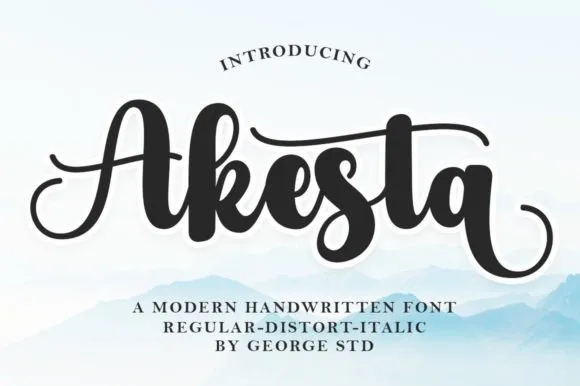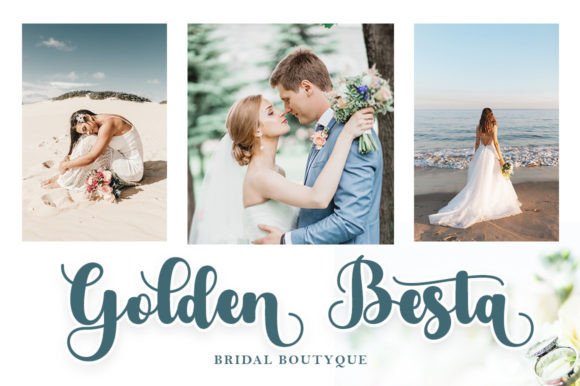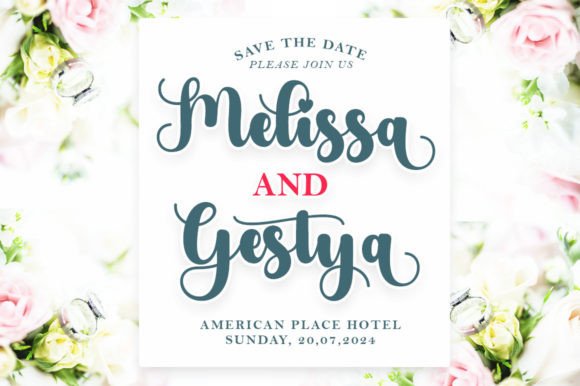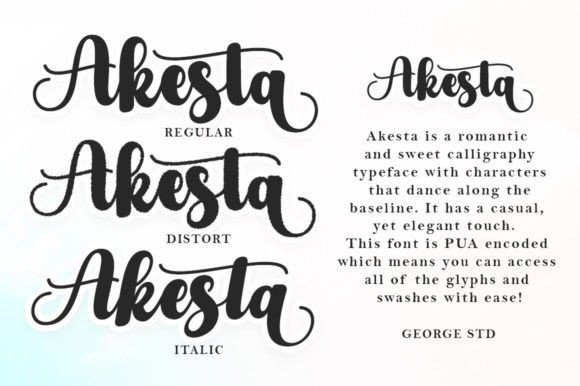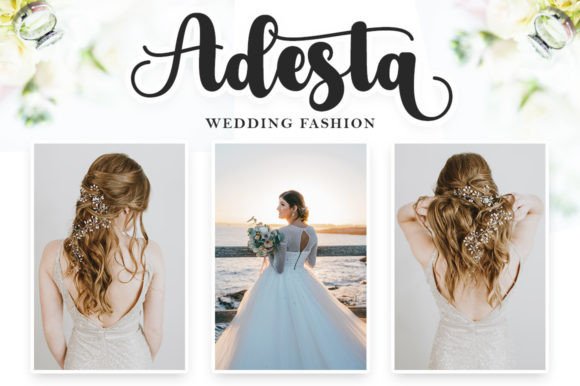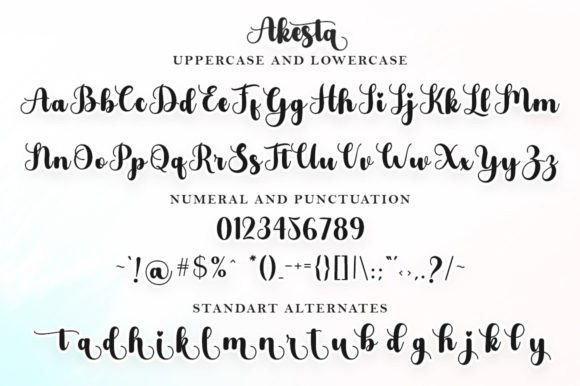
Akesta Font
About Akesta Font
“Akesta” is a romantic and sweet calligraphy typeface designed with characters that dance along the baseline. This font combines a casual yet elegant touch, creating a beautiful aesthetic that is perfect for various creative projects.
The dancing characters along the baseline add a dynamic and lively quality to the text, contributing to the unique charm of “Akesta.” This feature makes it suitable for projects that aim to convey a sense of romance, warmth, and playfulness.
The casual elegance of this calligraphy typeface makes it versatile and well-suited for a range of design purposes. Whether used for wedding invitations, love letters, branding, or other creative projects, “Akesta” brings a distinct and memorable quality to the text.
The fact that “Akesta” is PUA encoded means that you can access all of the glyphs and swashes with ease. This provides flexibility and ease of use, allowing you to explore and integrate various design elements effortlessly.
In summary, “Akesta” is a romantic and sweet calligraphy typeface that adds a touch of elegance and playfulness to your projects. Its dancing characters and casual yet stylish appearance make it a charming choice for designers looking to infuse a romantic and delightful atmosphere into their creative endeavors.